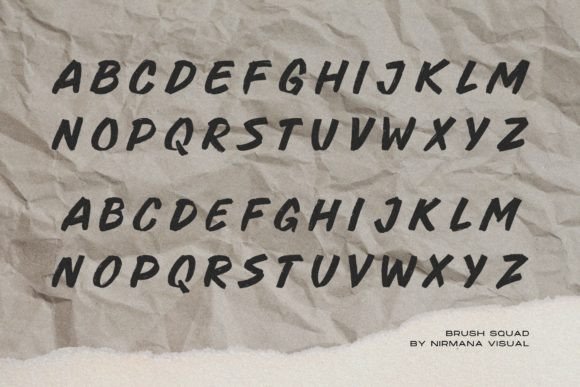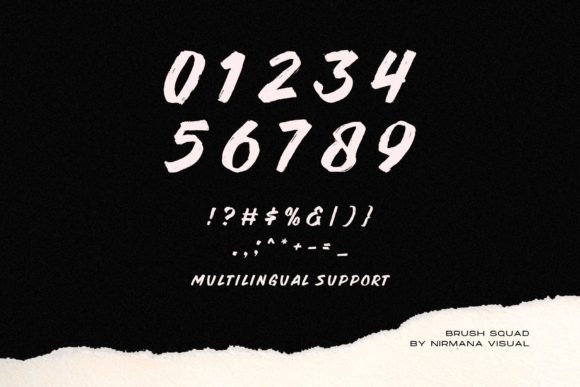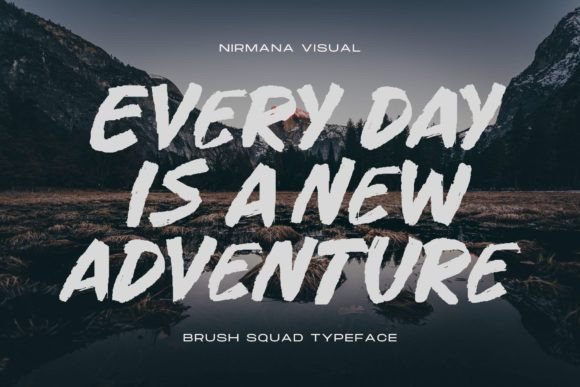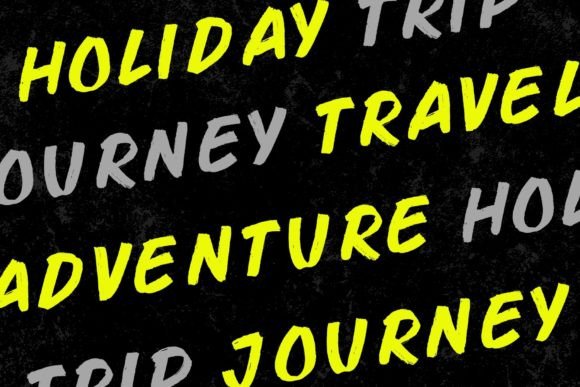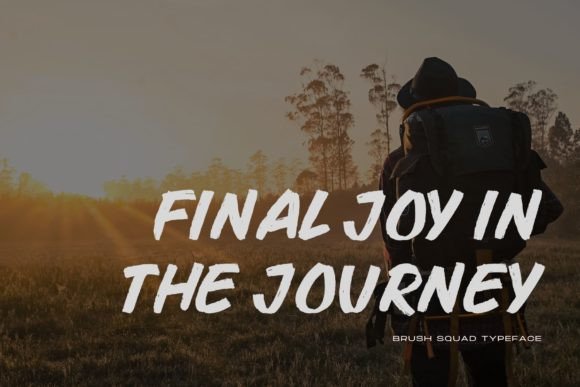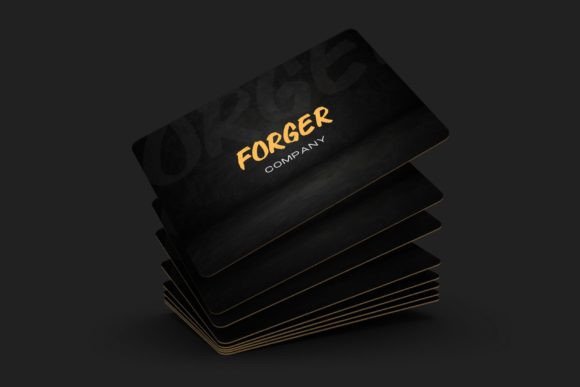
Introducing Brush Squad Font: Elevate Your Designs with a Modern and Professional Touch
Are you tired of using the same old fonts in your designs? Do you want to add a touch of modernity and professionalism to your titles, logos, and typography? Look no further than Brush Squad Font, a dry brush display typeface that’s perfect for making your designs stand out.
What is Brush Squad Font?
Brush Squad Font is a unique and stylish dry brush display typeface that’s designed to add a creative and artistic touch to your designs. Its rough, textured look gives it a distinctive and eye-catching appearance that’s sure to grab attention. Whether you’re a designer, crafty DIY enthusiast, or simply someone who loves to create, Brush Squad Font is the perfect tool to help you elevate your designs.
What Can I Use Brush Squad Font For?
The possibilities are endless with Brush Squad Font! Its versatility makes it suitable for a wide range of design projects, including:
• Titles and headings: Add a bold and eye-catching touch to your titles and headings with Brush Squad Font.
• Logos and branding: Create a unique and memorable logo for your business or brand with this stylish font.
• Typography: Use Brush Squad Font to add a creative and artistic touch to your typography designs.
• Clothes and apparel: Design custom t-shirts, hoodies, and other apparel with Brush Squad Font for a modern and trendy look.
• Magazines and brochures: Add a touch of sophistication and elegance to your magazine and brochure designs with this beautiful font.
• Packaging: Use Brush Squad Font to create eye-catching packaging designs that stand out on store shelves.
Why Choose Brush Squad Font?
So why should you choose Brush Squad Font for your design projects? Here are just a few reasons:
• Modern and professional look: Brush Squad Font gives your designs a modern and professional look that’s sure to impress.
• Unique and eye-catching: The dry brush texture of this font gives it a distinctive and eye-catching appearance that’s sure to grab attention.
• Versatile: Brush Squad Font is suitable for a wide range of design projects, from titles and logos to typography and packaging.
Tips for Using Brush Squad Font
Here are a few tips for getting the most out of Brush Squad Font:
• Use it sparingly: Brush Squad Font is a bold and eye-catching font, so use it sparingly to avoid overwhelming your design.
• Pair it with other fonts: Experiment with pairing Brush Squad Font with other fonts to create a unique and interesting look.
• Adjust the size and color: Play around with different sizes and colors to find the perfect combination for your design.
Font Name Brush Squad Font
Author Sigit Dwipa
Brush Squad Font is a versatile and stylish dry brush display typeface that’s perfect for adding a modern and professional touch to your designs. With its unique texture and eye-catching appearance, it’s sure to grab attention and make your designs stand out. Whether you’re a designer, crafty DIY enthusiast, or simply someone who loves to create, Brush Squad Font is a must-have font for any design project.